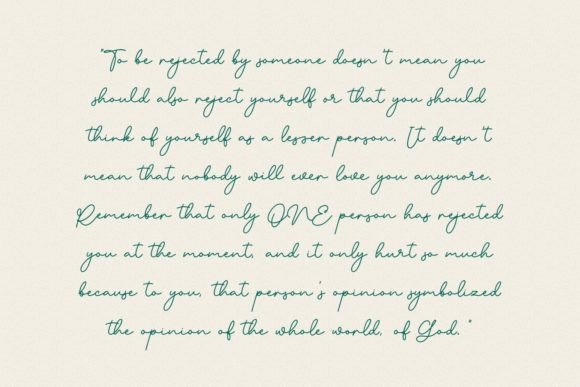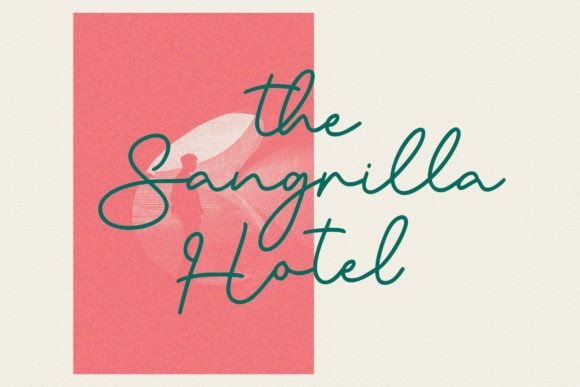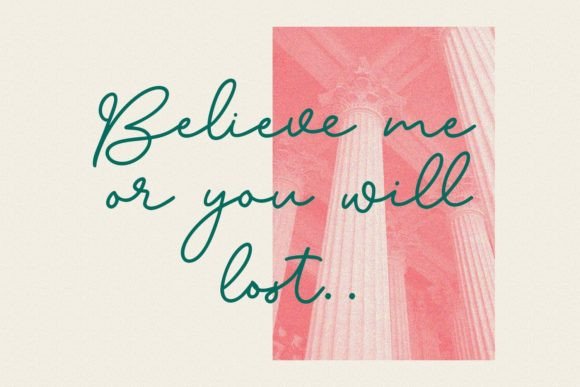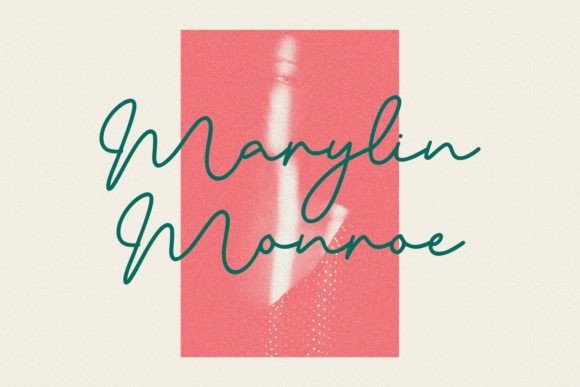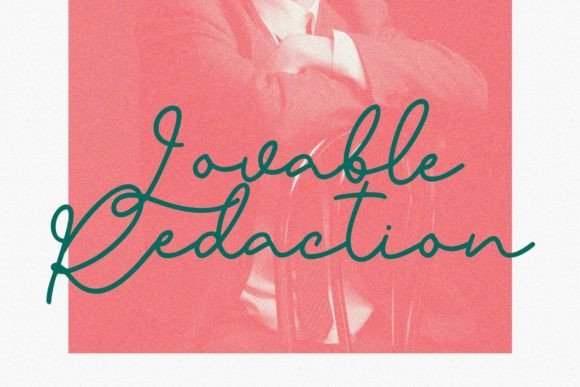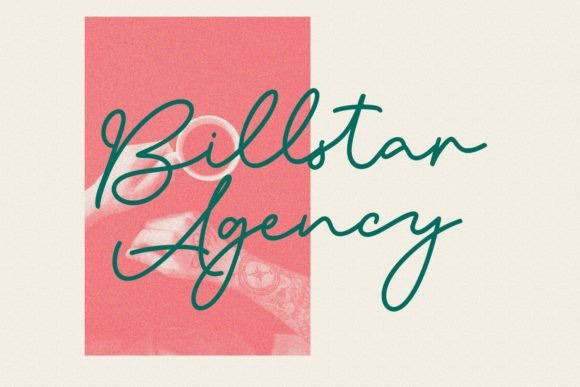
Introducing Dear Eloise Font: Elevate Your Designs with Elegance and Sophistication
In the world of typography, a font can make all the difference in transforming a design from ordinary to extraordinary. For designers and crafters seeking a unique and fancy signature script font, Dear Eloise is an exceptional choice. With its regular mono-line stroke, fun character, ligatures, and alternates, this font offers a wealth of creative possibilities. In this article, we’ll explore the features and benefits of Dear Eloise, and how it can elevate your designs in various applications.
What is Dear Eloise Font?
Dear Eloise is a distinctive fancy signature script font that exudes elegance and sophistication. Its regular mono-line stroke provides a sense of consistency and harmony, while its fun character and ligatures add a touch of playfulness and personality. The font also features alternates, which offer designers the flexibility to experiment with different styles and variations.
Key Features of Dear Eloise Font
- Regular Mono-line Stroke: The font’s consistent stroke width creates a sense of fluidity and smoothness, making it perfect for designs that require a touch of elegance.
- Fun Character and Ligatures: Dear Eloise’s playful character and ligatures add a whimsical touch to your designs, making them more engaging and visually appealing.
- Alternates: The font’s alternate characters provide designers with a range of options to experiment with different styles and variations, allowing for greater creative freedom.
Use Cases for Dear Eloise Font
Dear Eloise is a versatile font that can be used in a variety of applications, including:
- Logo Design: The font’s unique and elegant style makes it perfect for creating logos that require a touch of sophistication and personality.
- Social Media: Use Dear Eloise to create eye-catching social media graphics, quotes, and posts that stand out from the crowd.
- Movie Titles and Book Titles: The font’s cinematic and elegant feel makes it ideal for movie titles, book covers, and other publishing projects.
- Short Text and Long Text: Dear Eloise is suitable for both short and long text, making it perfect for designs that require a touch of elegance and sophistication.
- Secondary Text: The font pairs well with sans-serif and serif fonts, making it an excellent choice for secondary text in designs.
Benefits of Using Dear Eloise Font
By incorporating Dear Eloise into your designs, you can:
- Elevate Your Designs: The font’s unique and elegant style can instantly elevate your designs from ordinary to extraordinary.
- Stand Out from the Crowd: Dear Eloise’s distinctive style ensures that your designs stand out from the crowd and grab attention.
- Enhance Brand Identity: The font’s sophisticated and elegant feel can help enhance your brand’s identity and create a lasting impression.
Tips for Using Dear Eloise Font
To get the most out of Dear Eloise, consider the following tips:
- Experiment with Alternates: Take advantage of the font’s alternate characters to experiment with different styles and variations.
- Pair with Other Fonts: Pair Dear Eloise with sans-serif and serif fonts to create visually appealing and harmonious designs.
- Use for Headlines and Titles: The font’s elegant and sophisticated feel makes it perfect for headlines and titles.
In conclusion, Dear Eloise is a unique and elegant fancy signature script font that offers a wealth of creative possibilities for designers and crafters. Its regular mono-line stroke, fun character, ligatures, and alternates make it perfect for a variety of applications, from logo design to social media graphics. By incorporating Dear Eloise into your designs, you can elevate your work, stand out from the crowd, and create stunning designs that leave a lasting impression.